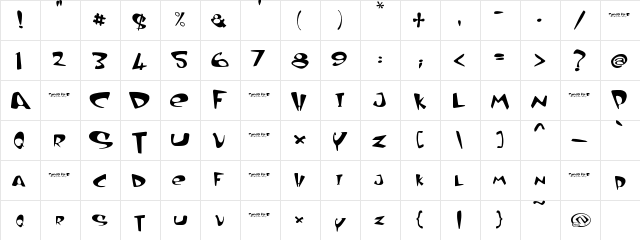
Curved air Regular
| Foundry | Chris Brown (visual design) |
| Designer | Chris Brown |
Design Context for Curved air Typeface
Curved air is a composed and adaptable typeface that performs quietly and consistently across a wide range of design contexts.